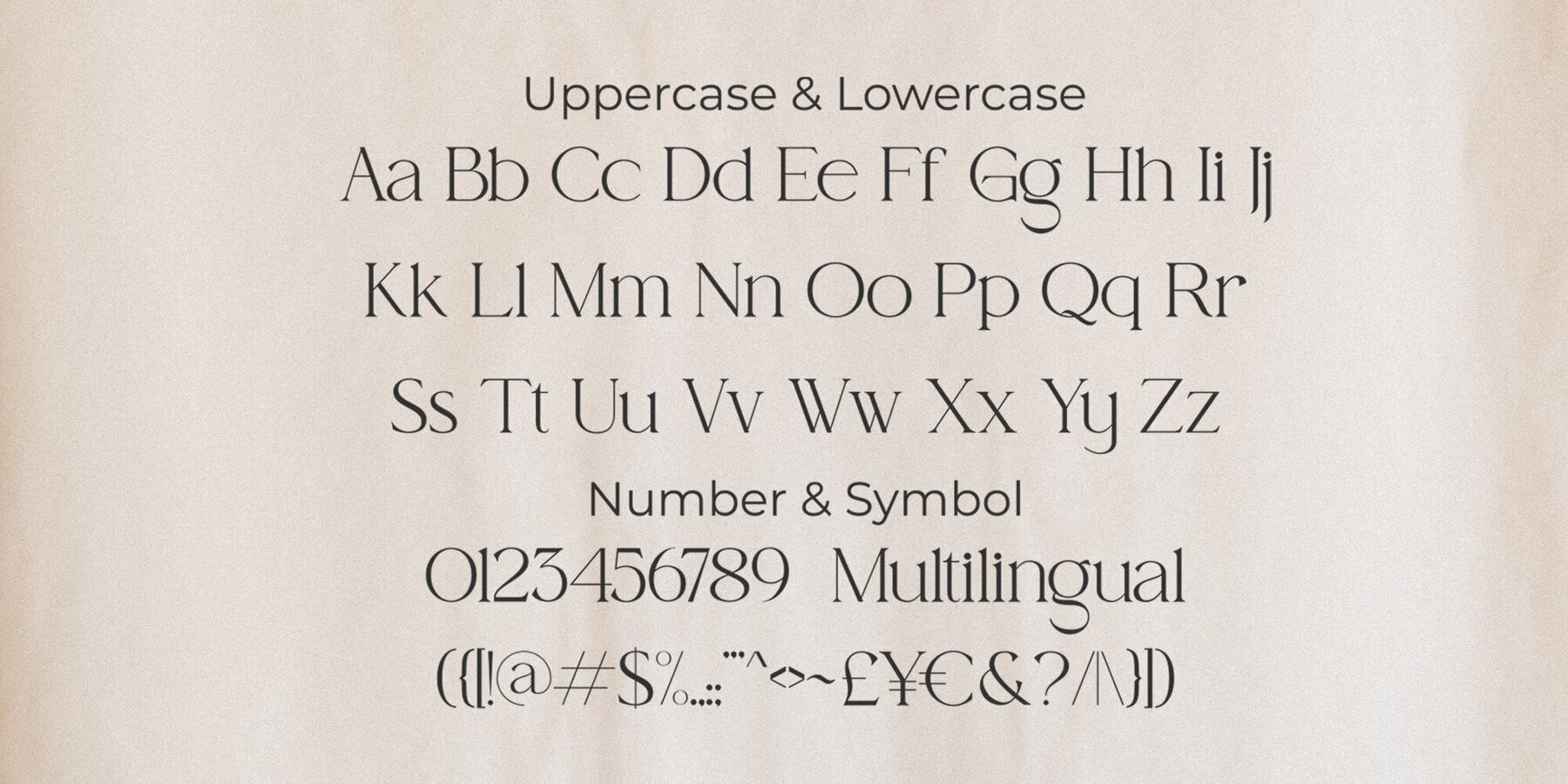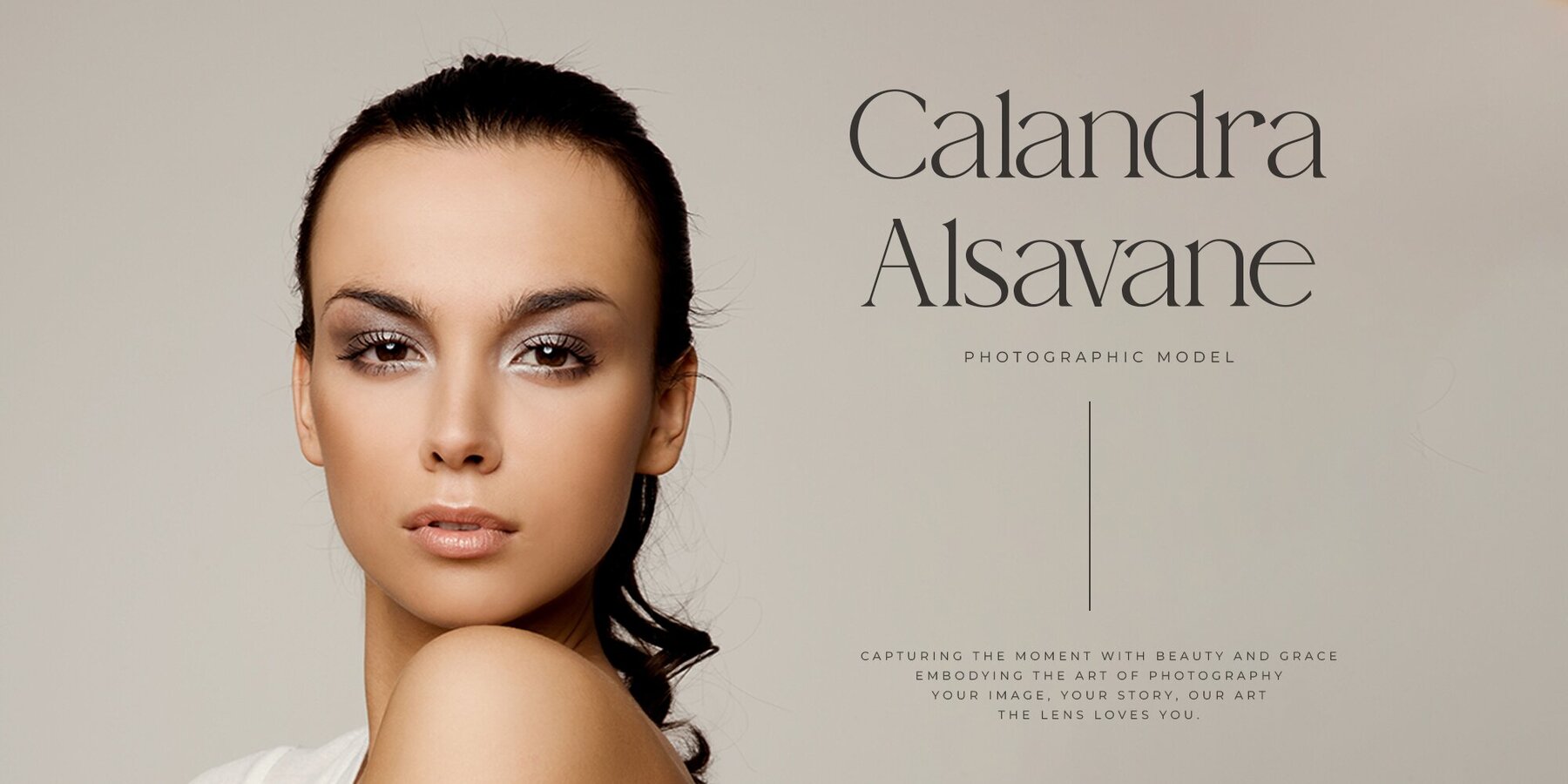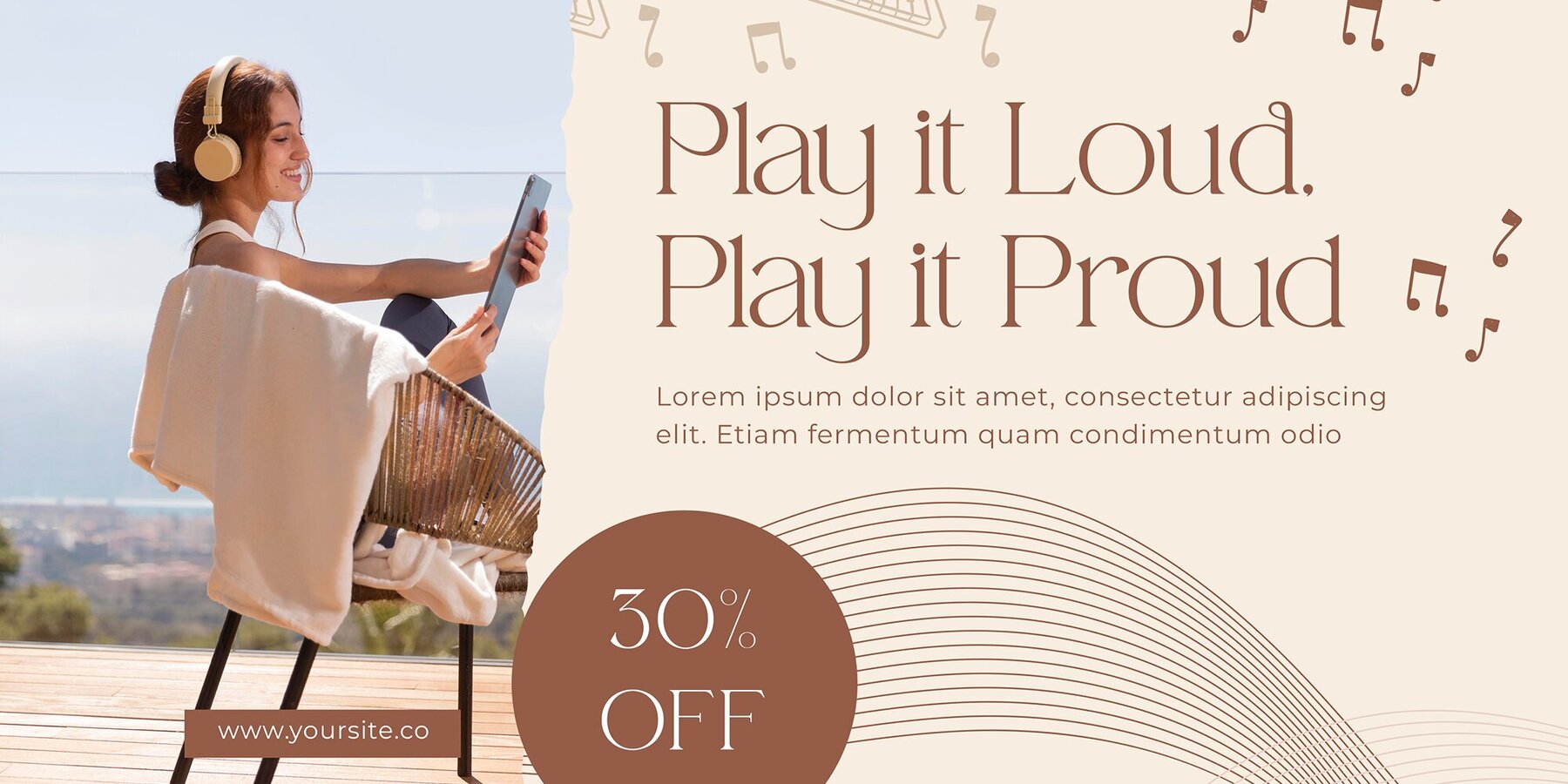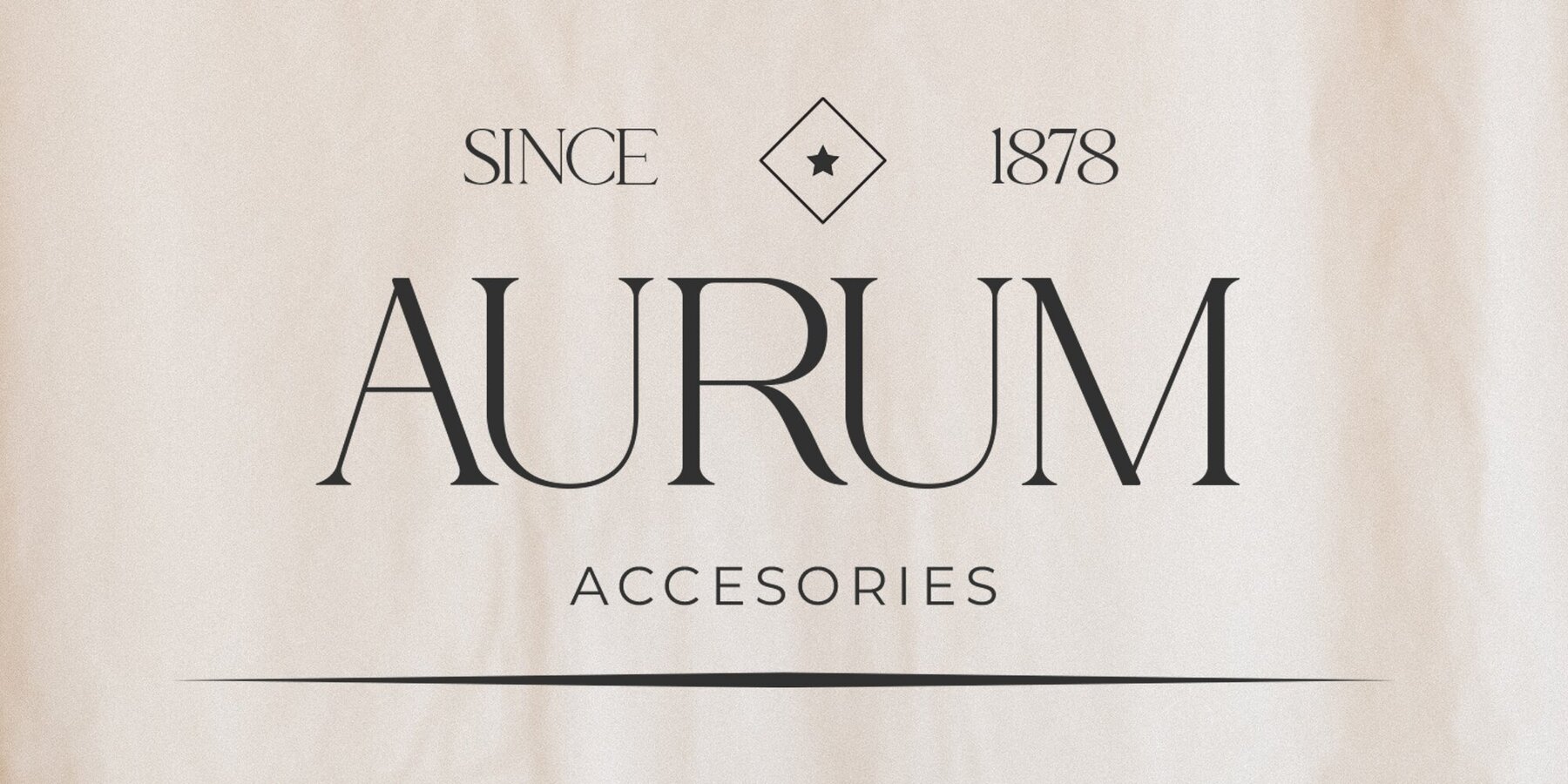
React Font
React Regular
React is a sophisticated serif typeface featuring both uppercase and lowercase letters. Its bold design makes it suitable for a range of applications, from large-scale headings to small text in logos. This typeface is particularly effective for display purposes, infusing headings and logos with clean lines and smooth curves that add a touch of class to any project. Embrace its unique style for a modern and elegant look. React is versatile, making it an ideal choice for: To utilize the alternate characters, use the Glyphs panel: React is a valuable addition to any font collection, offering a blend of modern aesthetics and timeless elegance that’s sure to enhance your design projects.React: A Classy and Bold Typeface
Design Features